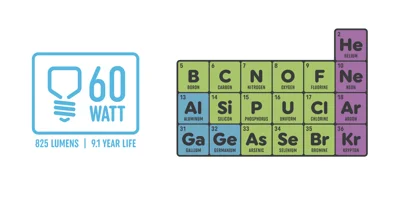
Uniform Rounded Font
Uniform Rounded Font is perfect for children's products, tech startups, mobile app interfaces, friendly branding, educational materials, healthcare communications, modern logos, user-friendly websites, and any project requiring approachable typography with contemporary rounded aesthetics.
What makes Uniform Rounded Font exciting is its perfect balance between professional functionality and friendly accessibility through its soft, rounded letterforms. This innovative typeface combines geometric precision with organic curves, creating a welcoming and modern appearance that enhances readability while maintaining a sophisticated edge. The font's rounded corners soften the overall impression without compromising legibility, making it ideal for brands that want to appear both trustworthy and approachable.
The Uniform Rounded Font family includes multiple weights ranging from thin to black, featuring complete uppercase and lowercase alphabets, numerals, extensive punctuation, and special characters. Each weight maintains consistent rounded characteristics throughout all letterforms while providing excellent scalability for both digital and print applications.
Whether you're designing user interfaces, creating child-friendly educational content, or developing modern brand identities with approachable aesthetics, Uniform Rounded Font delivers exceptional versatility and contemporary appeal. This outstanding typeface transforms standard text into engaging visual elements that communicate friendliness and professionalism simultaneously. The font's comprehensive weight range makes it perfect for complex design hierarchies and multi-platform applications. Download this exceptional font today and bring modern rounded elegance to your creative projects with unmatched readability and style.